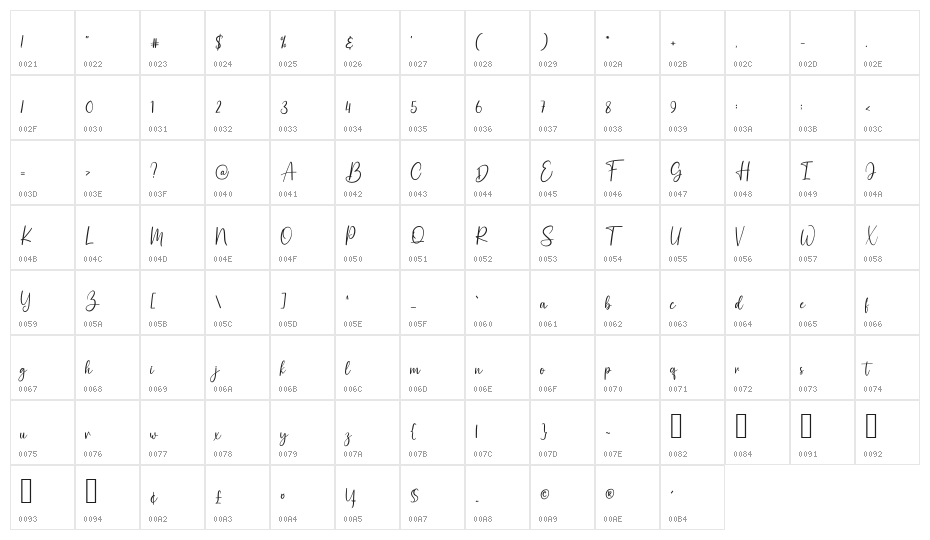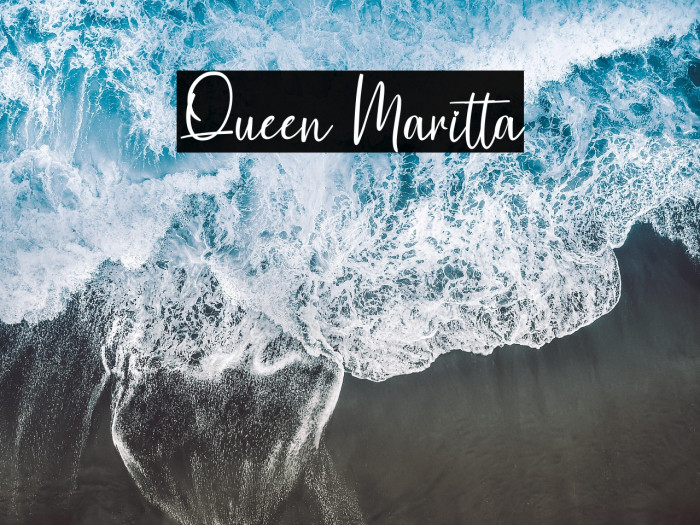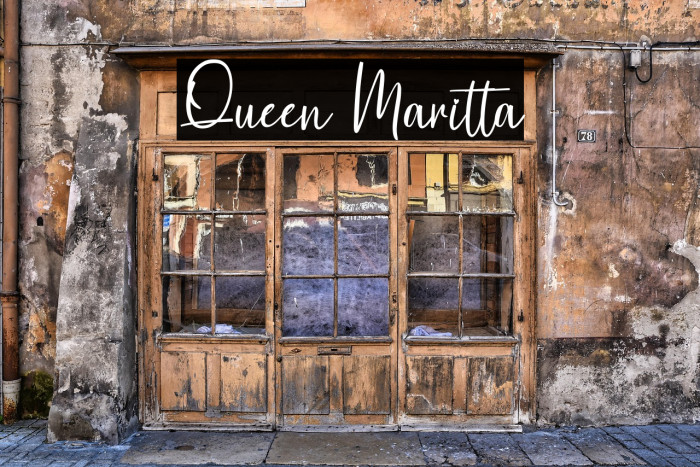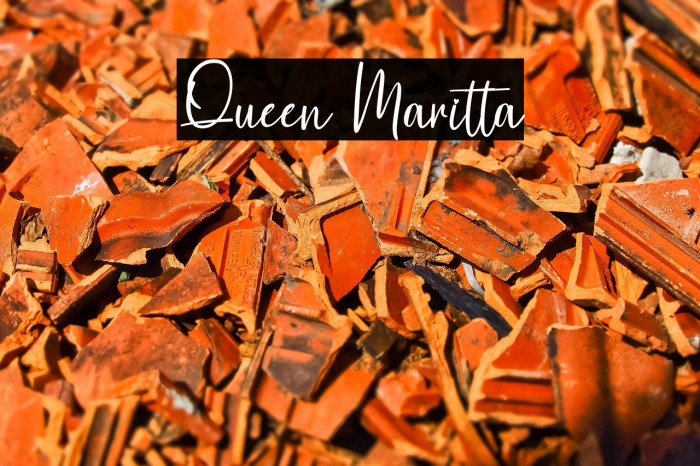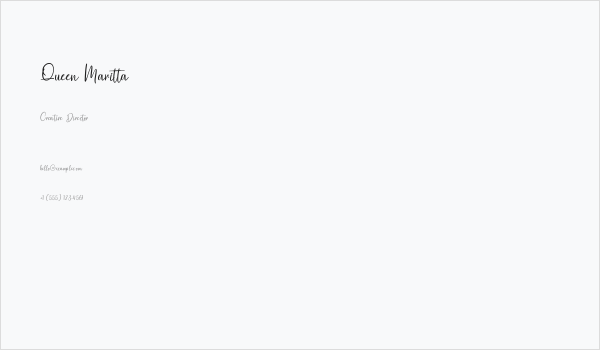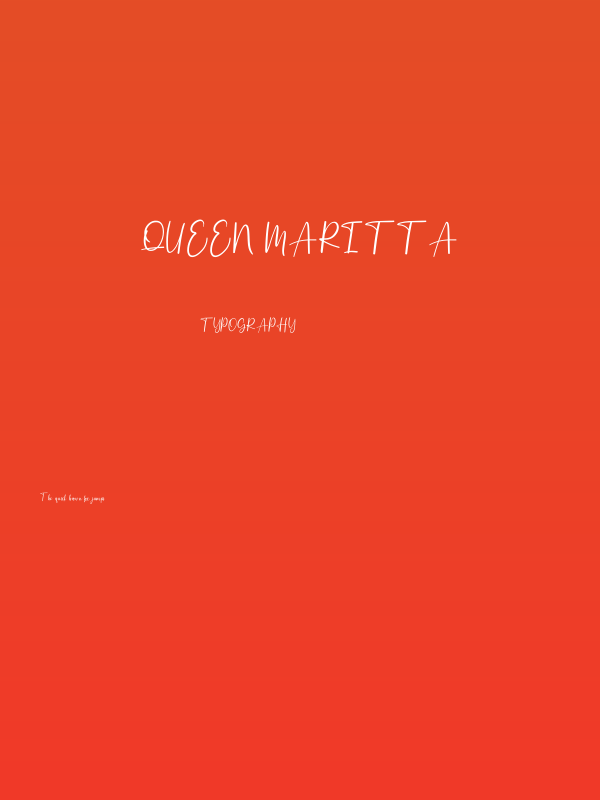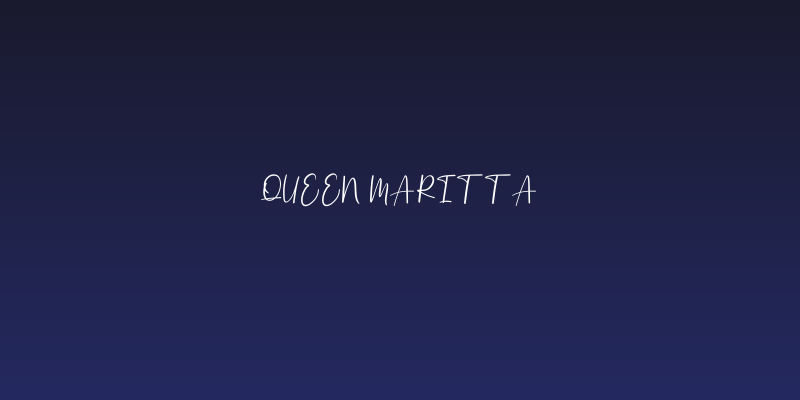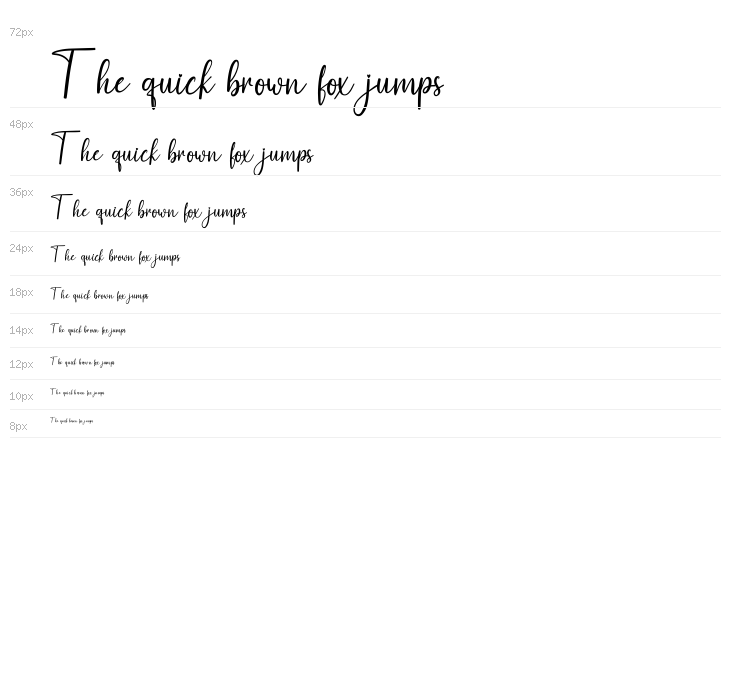
Queen Maritta Font
Queen Maritta Description
This font features a playful and elegant script style, characterized by its flowing, cursive letterforms. The uppercase letters are tall and slightly slanted, with a whimsical flair that adds a touch of sophistication. The lowercase letters maintain a consistent style, with smooth curves and delicate lines that enhance readability. The numerals are clear and distinct, complementing the overall aesthetic. Special characters are thoughtfully designed to match the font's elegant theme, making it versatile for various uses.